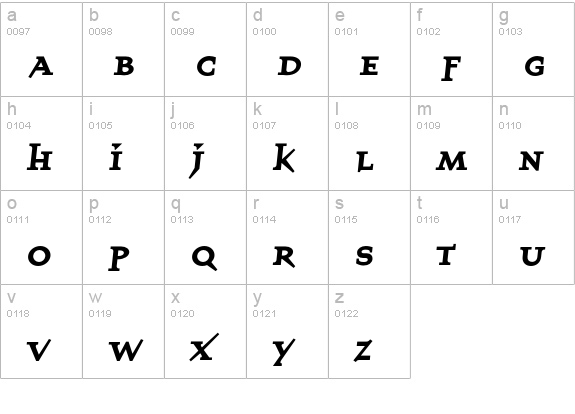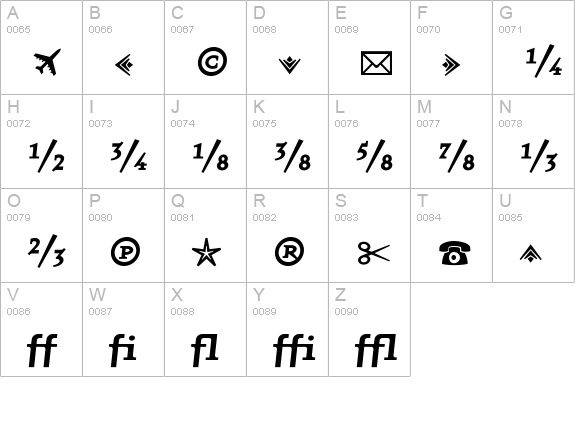
QuartetFractionsBold Font Details
Introducing QuartetFractionsBold font, a mesmerizing typeface designed to captivate and elevate any project with its bold elegance. This font embodies a harmonious fusion of modernity and traditional craftsmanship, making it the perfect choice for those seeking a touch of sophistication in their designs. With its sleek and stylish appearance, QuartetFractionsBold font effortlessly commands attention and adds a touch of finesse to any text. Its precisely crafted letterforms exude confidence and professionalism, making it an ideal choice for branding, logos, headlines, and editorial design. What sets QuartetFractionsBold font apart is its attention to detail, particularly in its carefully designed fractions. These beautifully rendered fractions provide a seamless and visually pleasing reading experience, ensuring that your content remains both functional and aesthetically pleasing. And the best part? QuartetFractionsBold font is freely available to download at FontsMarket.com. This means that you have the opportunity to add this stunning typeface to your collection without any cost. Whether you are a designer, a student, or simply a typography enthusiast, QuartetFractionsBold font offers an exceptional value that is hard to resist. So why wait? Elevate your designs to new heights with the exquisite QuartetFractionsBold font. Download it now from FontsMarket.com and unlock a world of endless creative possibilities.